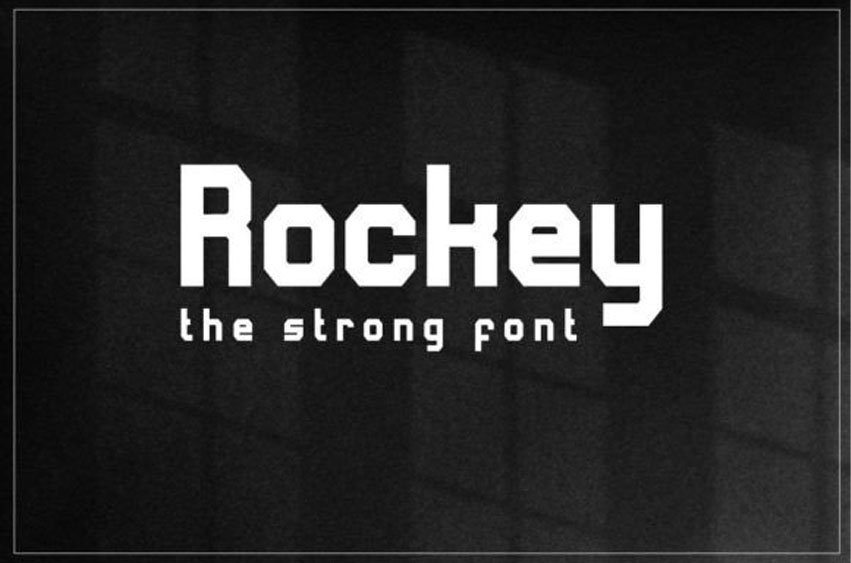
Rockey Font is a strong and assertive display font.
No matter the topic, this font will be an incredible asset to your fonts’ library, as it has the potential to elevate any creation.